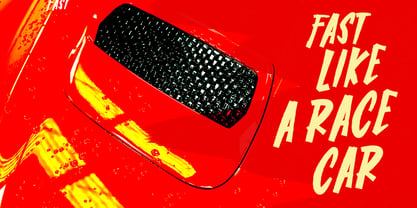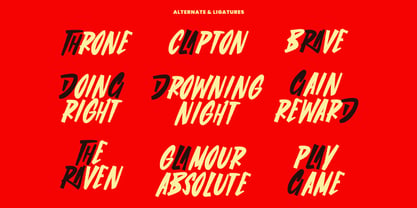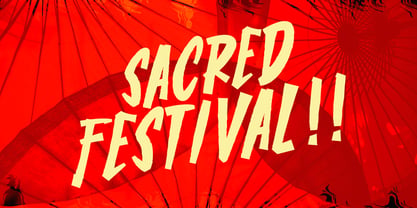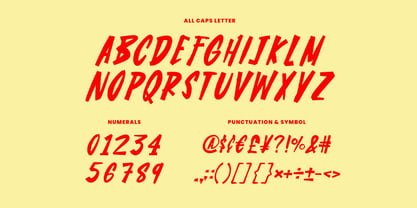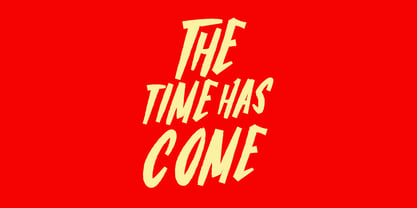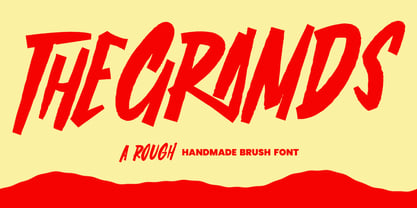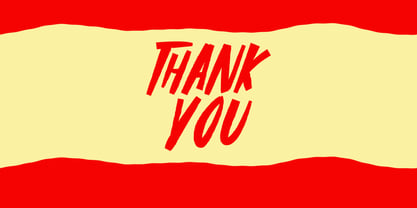
MC The Gramds
by Maulana Creative
The MC The Gramds Font Family was designed by Gilang Maulana and published by Maulana Creative. MC The Gramds contains 1 styles. More about this family
Give your designs an authentic brush handcrafted feel. "The Gramds Rough Handmade Brush Font" is perfectly suited to stationery, logo, typography quotes, magazine or book cover, website header, flyer, clothing, branding, packaging design and more.
Designers: Gilang Maulana
Foundry: Maulana Creative